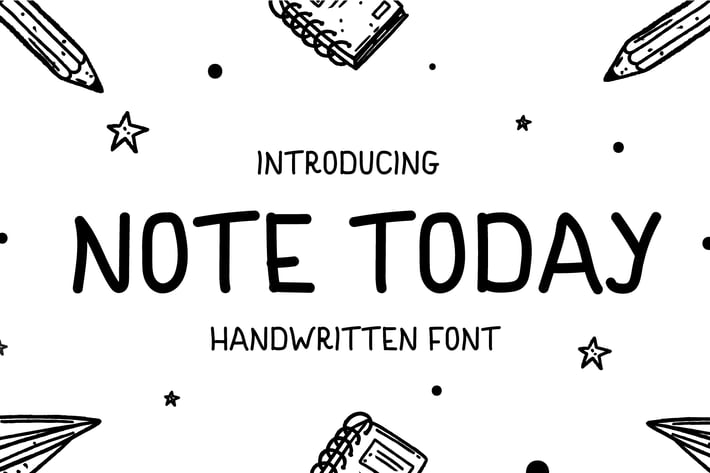
Note Today - Handwritten Display Font
Introducing Note Today - Handwritten Display Font
Note Today is a cute handwritten display font. It will add an incredibly joyful touch to your designs. Add this beautiful display font to each of your creative ideas and notice how it makes them stand out!
This font is perfect for quotes, shirt designs, websites, branding, children’s designs, blogs, logos, invitations and more!